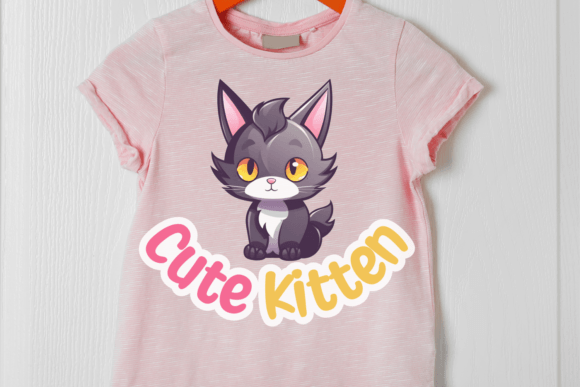
Introduction to Cook Book Font
Do you remember the moment when you stumble upon that perfect design element that takes your creative project to the next level? For designers, that moment is often a result of discovering a unique and high-quality font that perfectly complements their vision. And that’s exactly what we’re excited to introduce you to – the Cook Book Font.
With its sweet and friendly display style, Cook Book Font is an excellent addition to any design resource. Its natural and unique design makes it incredibly versatile, allowing you to unleash your creativity and push the boundaries of your next project. Whether you’re working on a digital design or a physical product, Cook Book Font is sure to make a lasting impression.
Key Features of Cook Book Font
- High-quality design resource with a unique, hand-drawn style, ideal for creative projects.
- Features a large character set with over 1000 glyphs, including Latin, Cyrillic, and Greek alphabets.
- Perfect for use in cookbooks, recipe cards, and other food-related design projects.
Honest Review: Cook Book Font
I recently had the opportunity to dive into the world of Cook Book Font, and I must say it’s a high-quality design resource that caught my attention. With a wide range of styles and typography options, it’s perfect for any creative project that requires a unique and inviting aesthetic.
- ✨ Unique and stylish typography options
- ⚠️ Limited support for non-English languages
- ⚠️ Some styles may not be suitable for professional publications
Overall, I’m impressed with Cook Book Font. It’s a great addition to any designer’s toolkit, and I appreciate the transparency and honesty that comes with it. While it may have some limitations, I think it’s a fantastic resource for anyone looking to add some personality to their creative project.
Cook Book Font is ideal for use in cookbooks, recipe cards, and other food-related projects. It is also suitable for use in creative projects such as menu design, food blog headers, and restaurant branding.
To get the most out of Cook Book Font, be sure to pair it with a clean and simple design aesthetic. You can also experiment with different font sizes and styles to add visual interest to your project.